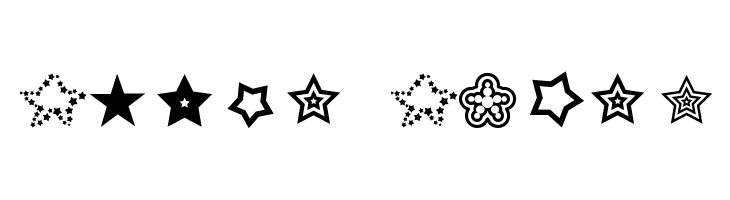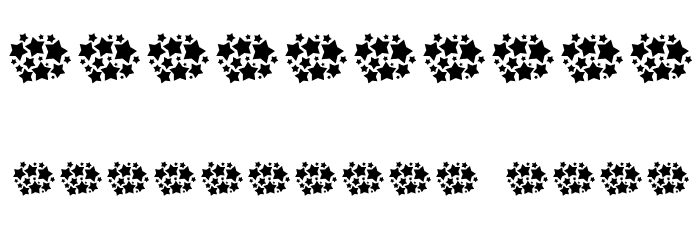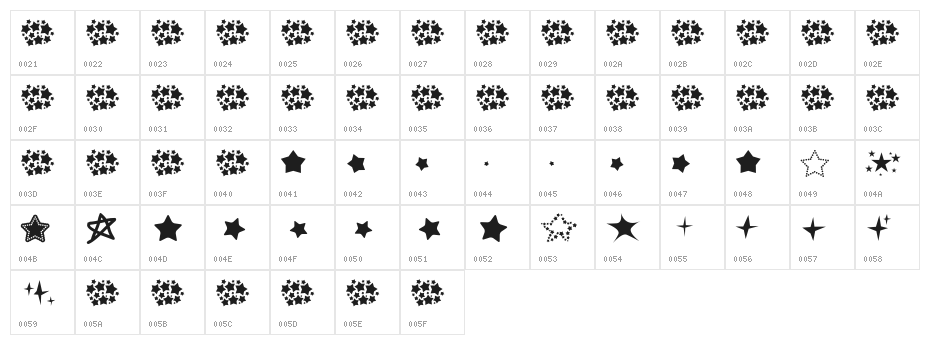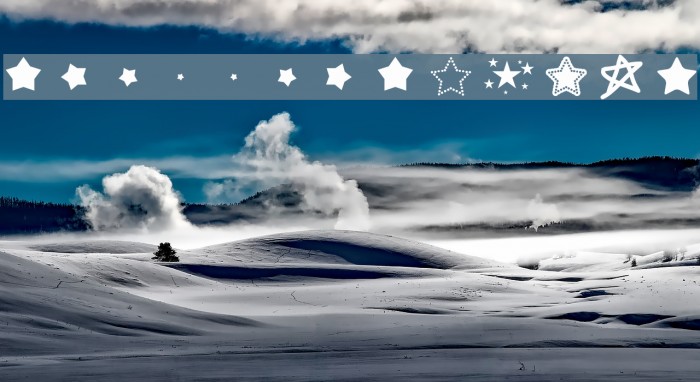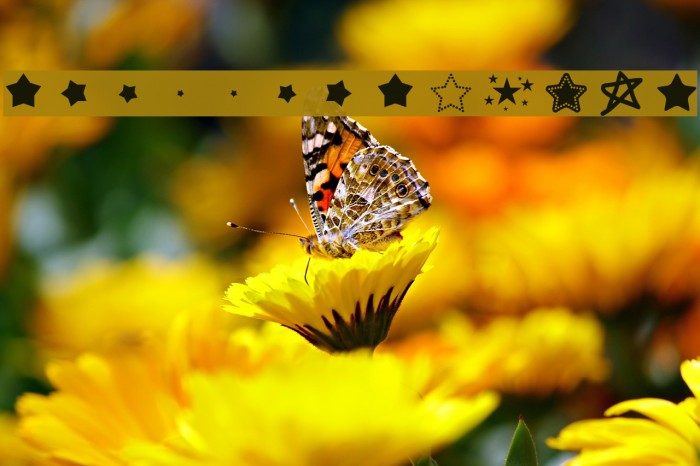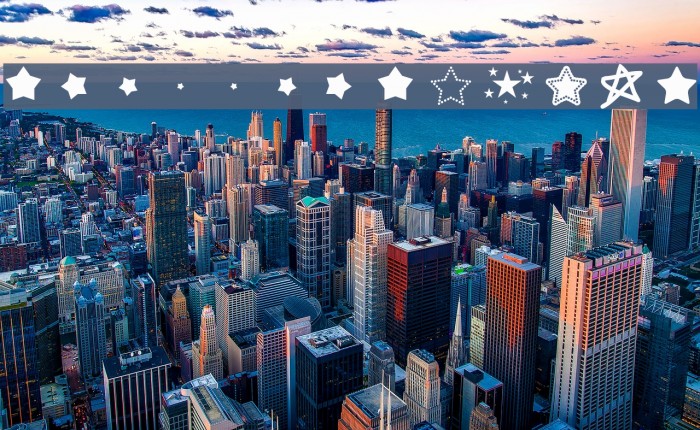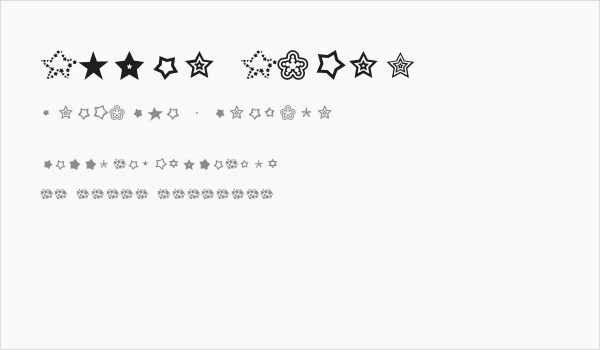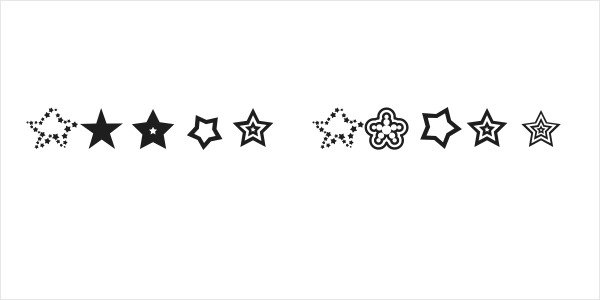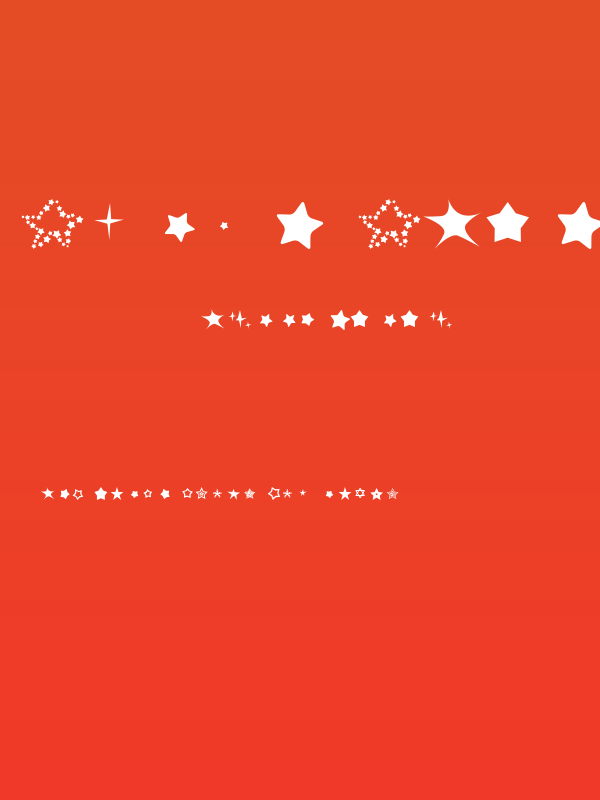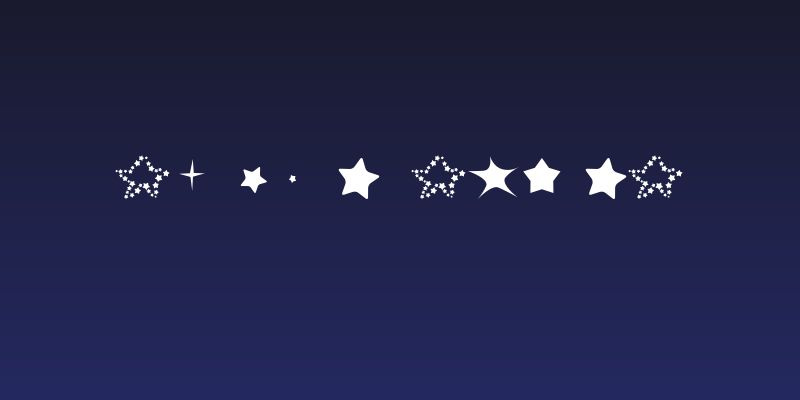
Super Stars Font
Super Stars Description
A decorative dingbat font featuring a wide variety of star shapes, including solid, outlined, dotted, clustered, and stylized stars, as well as some star-based patterns and symbols. The glyphs are bold, playful, and highly ornamental, with a mix of simple and intricate designs.
| Overall Style | Decorative, Playful, Festive |
| Use Case | Decorative elements, Borders, Icons, Themed graphics |
| Proposed Projects | Party invitations, festive banners, children's materials, scrapbooking, decorative borders, celebratory graphics. |